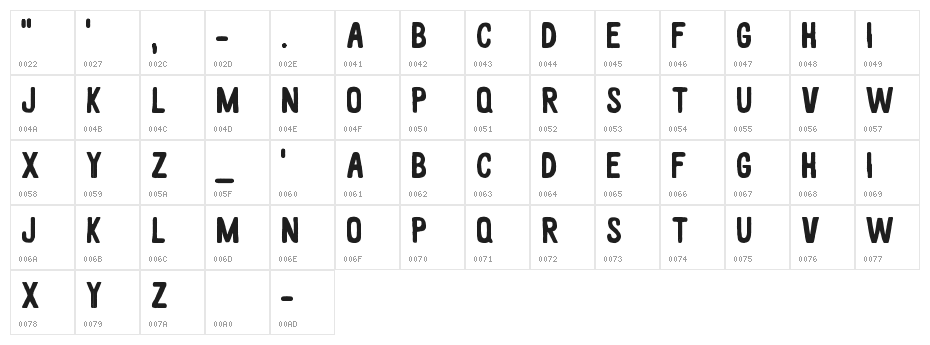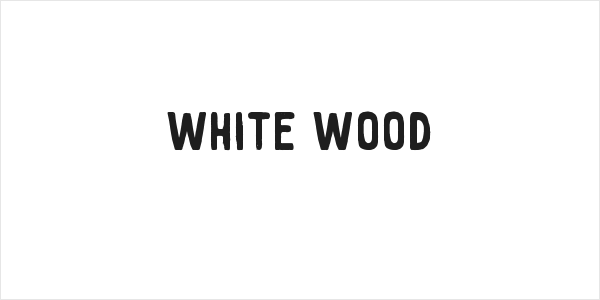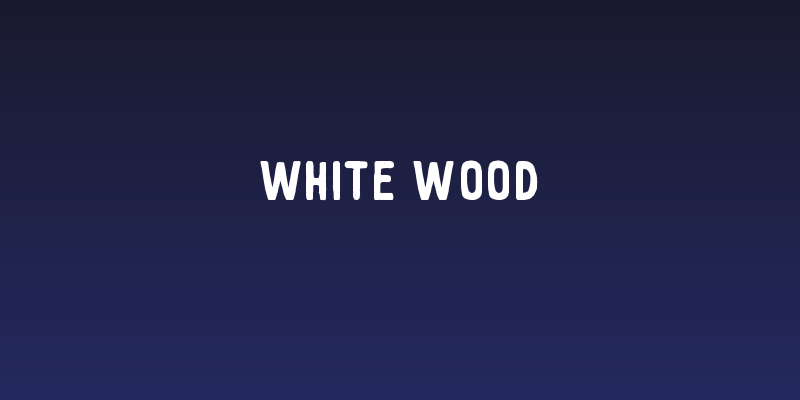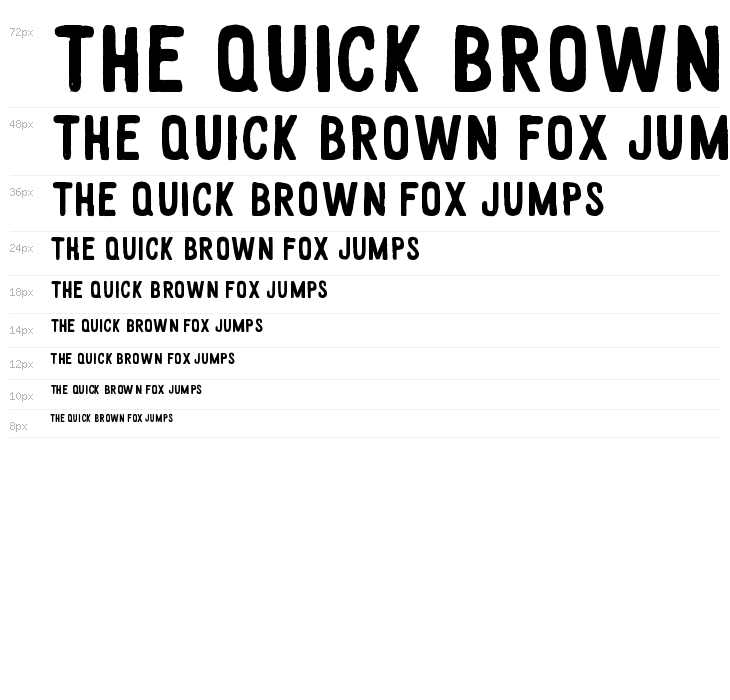
White wood Font
White wood Description
This font features a bold and playful style with rounded edges and a slightly irregular form, giving it a hand-drawn appearance. The uppercase letters are prominent and stand out with their thick strokes, while the lowercase letters maintain a consistent style that complements the uppercase. The numbers are equally bold, ensuring readability and consistency across different uses. The special characters are designed to match the overall aesthetic, making them suitable for creative and informal projects. The font's unique character is ideal for designs that require a touch of whimsy and personality.
| Overall Style | Playful, Hand-drawn |
| Proposed Projects | Ideal for children's books, playful branding, posters, and creative invitations. |